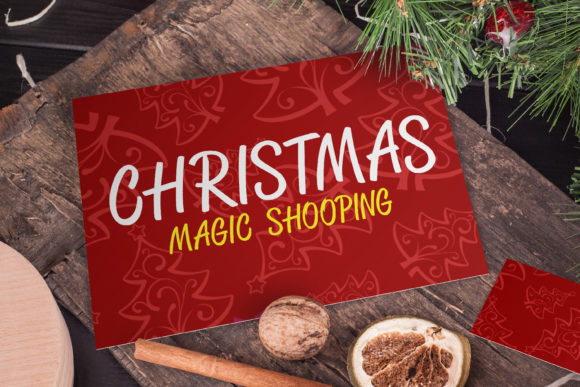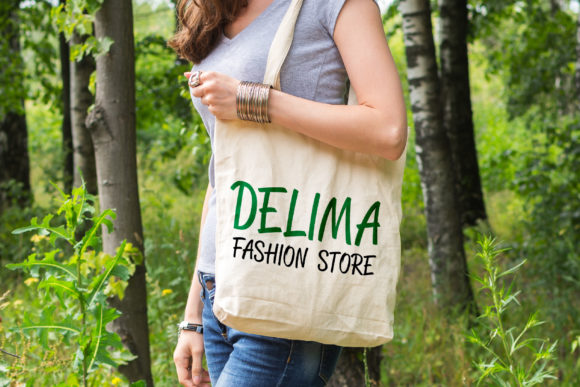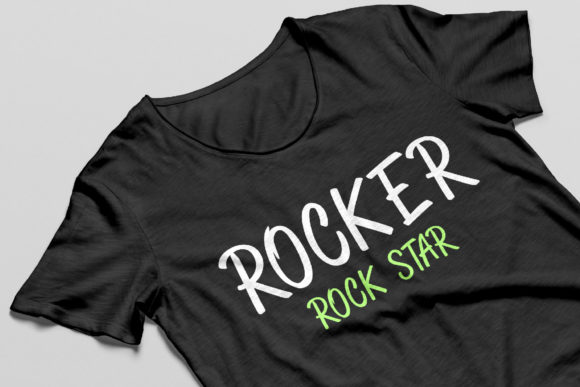
Cimol Font: A Playful and Simple Script Font with a Modern Style
In the world of typography, fonts play a crucial role in conveying the tone and personality of a brand or design. For designers and crafters, finding the perfect font can be a daunting task, especially when looking for something that is both playful and modern. This is where Cimol Font comes in – a beautiful script font that strikes the perfect balance between playfulness and simplicity.
What is Cimol Font?
Cimol Font is a modern script font designed to add a touch of elegance and whimsy to any design project. Its unique blend of curves and lines creates a distinctive look that is both eye-catching and memorable. Cimol is an equally playful and simple script font with a modern style, making it perfect for a wide range of applications, from branding and advertising to crafting and DIY projects.
Key Features of Cimol Font
- Playful and Modern Style: Cimol Font boasts a unique and modern style that is perfect for designers and crafters looking to add a touch of whimsy to their projects.
- Simple and Elegant: Despite its playful nature, Cimol Font remains simple and elegant, making it suitable for a wide range of applications.
- Script Font: As a script font, Cimol adds a touch of sophistication and elegance to any design project.
- Highly Versatile: Cimol Font can be used for a variety of projects, including branding, advertising, crafting, and DIY projects.
Uses of Cimol Font
Cimol Font is a highly versatile font that can be used for a wide range of projects, including:
- Branding and Advertising: Cimol Font is perfect for creating eye-catching logos, advertisements, and marketing materials.
- Crafting and DIY Projects: Cimol Font is a great choice for crafters and DIY enthusiasts looking to add a personal touch to their projects.
- Wedding and Event Planning: Cimol Font can be used to create beautiful wedding invitations, party decorations, and other event materials.
- Graphic Design: Cimol Font can be used in a variety of graphic design projects, including brochures, flyers, and posters.
Benefits of Using Cimol Font
There are several benefits to using Cimol Font in your design projects, including:
- Unique and Eye-Catching: Cimol Font is a unique and eye-catching font that can help your design projects stand out from the crowd.
- Easy to Read: Despite its playful nature, Cimol Font remains easy to read, making it perfect for body text and headlines.
- Highly Customizable: Cimol Font can be customized to fit your specific design needs, including adjusting font size, color, and style.
Tips for Using Cimol Font
Here are a few tips for using Cimol Font in your design projects:
- Use it Sparingly: Cimol Font is a bold and eye-catching font, so use it sparingly to avoid overwhelming your design.
- Pair it with Other Fonts: Cimol Font pairs well with other fonts, so experiment with different combinations to find the perfect look for your design.
- Adjust Font Size and Color: Adjust font size and color to create visual interest and hierarchy in your design.
Cimol Font is a beautiful and versatile script font that is perfect for designers and crafters looking for a playful and modern style. Its unique blend of curves and lines creates a distinctive look that is both eye-catching and memorable. With its highly customizable nature and cost-effective pricing, Cimol Font is a great choice for a wide range of design projects.